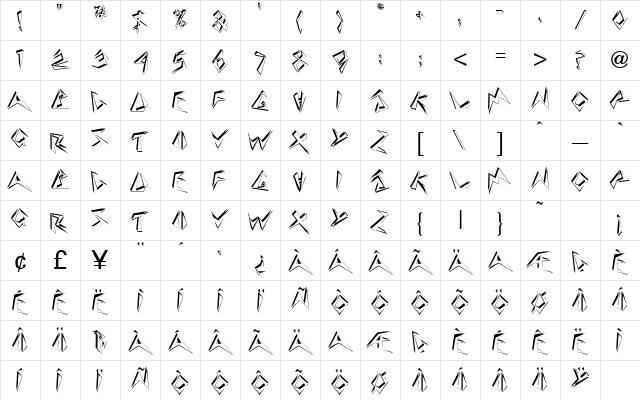
Zapper Regular
Design Context for Zapper
Zapper is a composed and adaptable typeface that performs quietly and consistently across a wide range of design contexts.